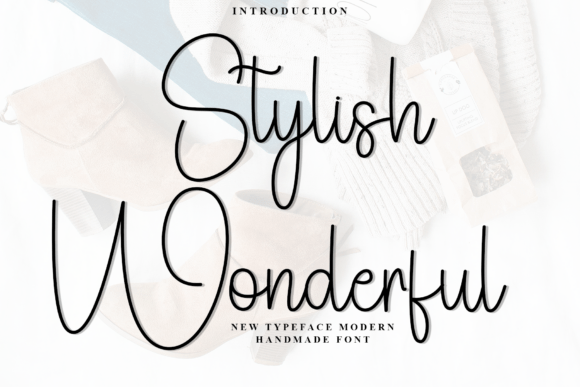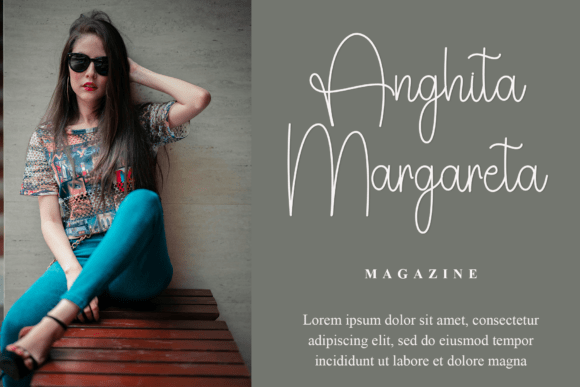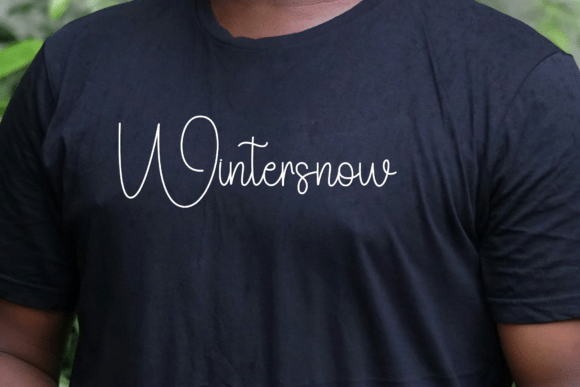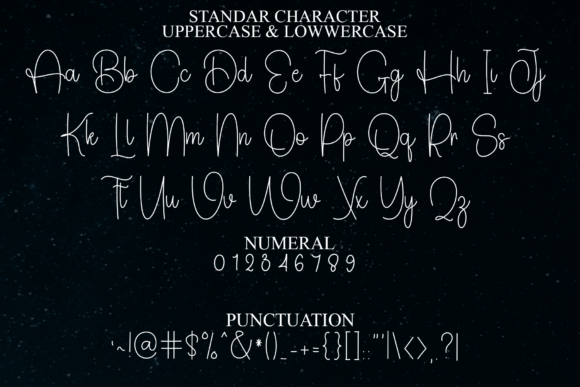
Stylish Wonderful Font
About the Stylish Wonderful Font
Experience the unique personality of Stylish Wonderful Font, a font designed for impact. Stylish Wonderful is a casual and creative font that exudes warmth and friendliness. Its round, playful strokes create a relaxed and approachable feel, perfect for personal projects, invitations, and social media graphics. The font’s charming, hand-drawn aesthetic adds a fun and unique touch to any design.
Stylish Wonderful Font Usage Examples